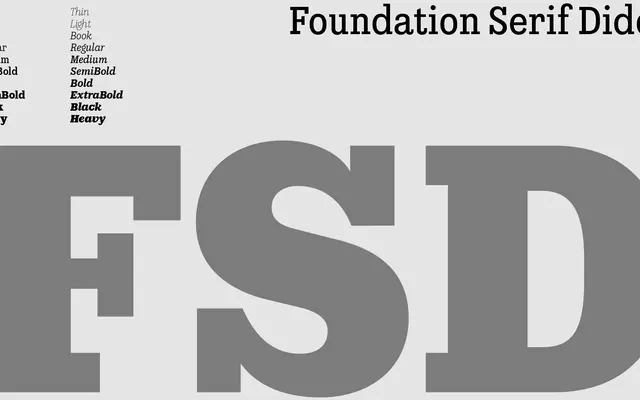
Foundation Serif Didot
A Didot-inspired serif revival from A2-Type's Foundation collection, spanning ten weights with matching italics for a total of twenty styles.
Part of A2-Type's broader Foundation suite of revival typefaces drawn from historical American, French and Nordic specimens, this family takes the French Didot tradition as its source — bringing sharp stroke contrast and hairline serifs to a contemporary weight range. Ten weights run from Thin to Heavy, each paired with an italic, giving designers a wide tonal range within a single neoclassical voice. Suited to fashion, luxury editorial and high-contrast display work where the Didot idiom is called for.
The name directly references Didot, the canonical French neoclassical serif tradition characterised by extreme stroke contrast, hairline serifs and vertical axis — placing this firmly in the didone subcategory.